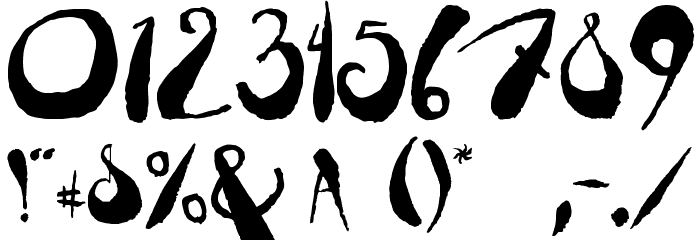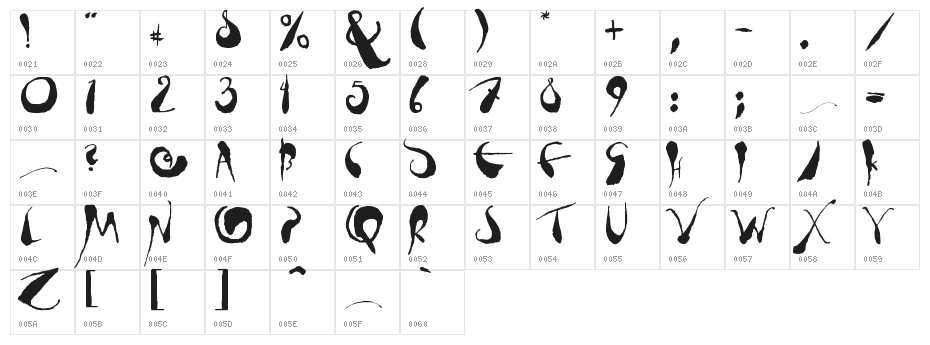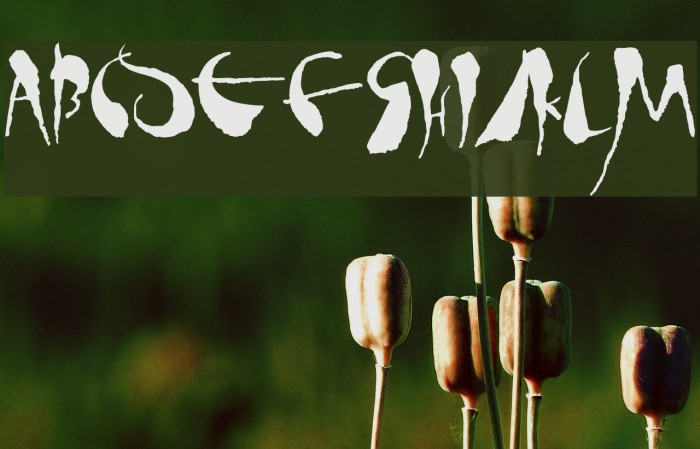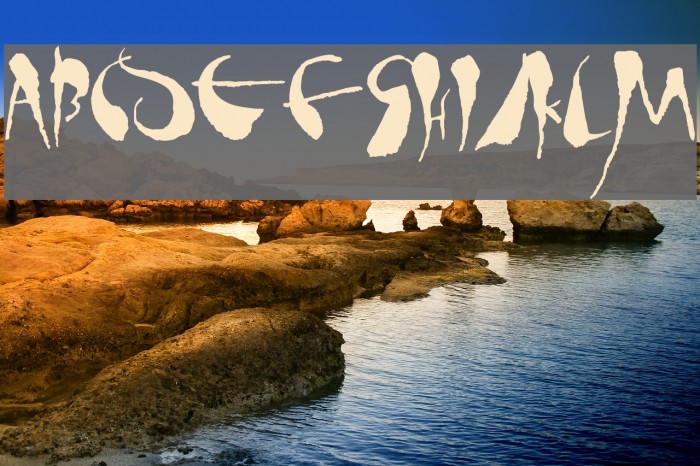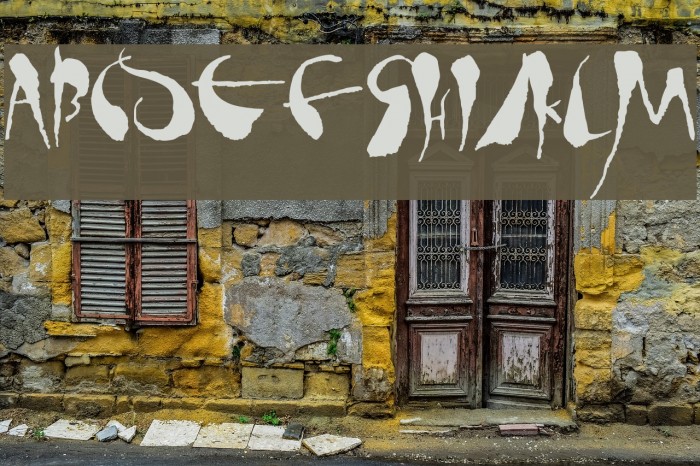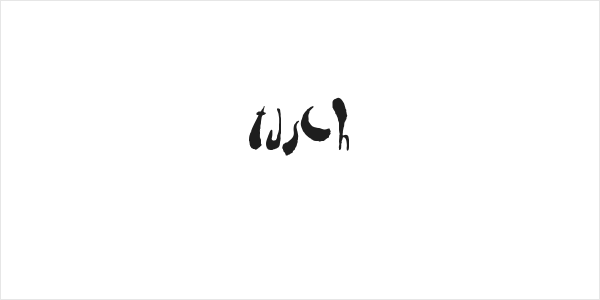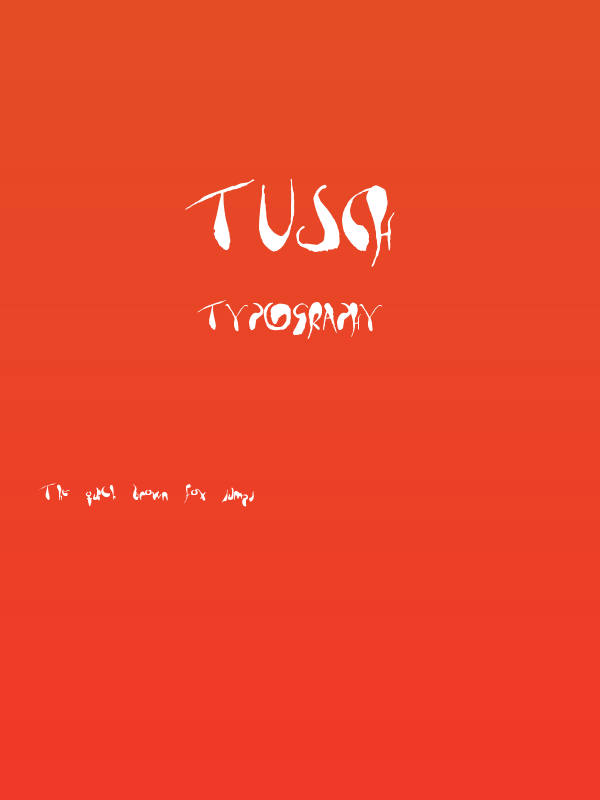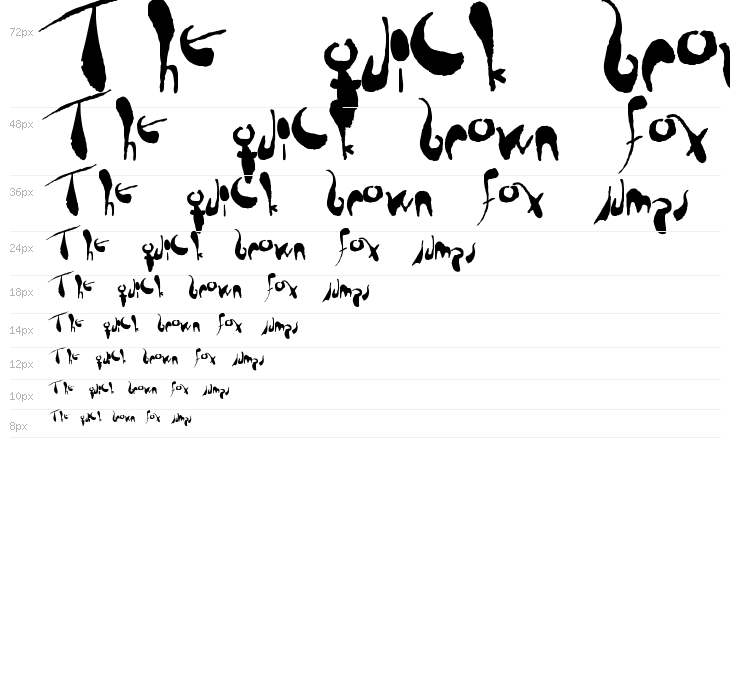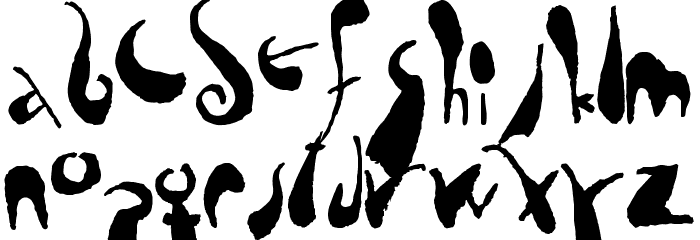
tusch Font
tusch Description
This font exhibits a highly artistic and expressive style, characterized by its bold and irregular strokes. The letters are crafted with a sense of movement and fluidity, giving them a dynamic and energetic appearance. The uppercase and lowercase characters share a consistent design language, with exaggerated curves and sharp angles that create a sense of drama. The numbers and special characters maintain this artistic flair, ensuring a cohesive look across all elements. The overall design is reminiscent of abstract calligraphy, making it stand out as a unique and creative typeface.
| Proposed Projects | Ideal for creative projects such as posters, album covers, and artistic branding where a bold statement is needed. |